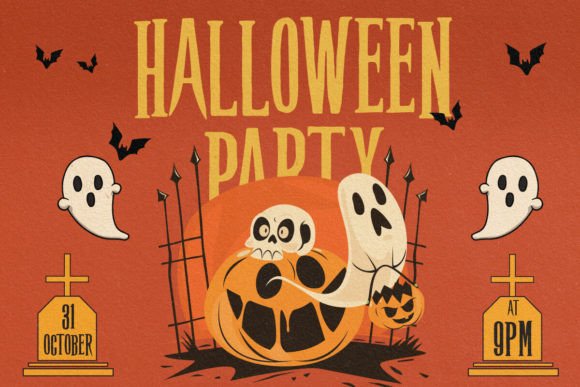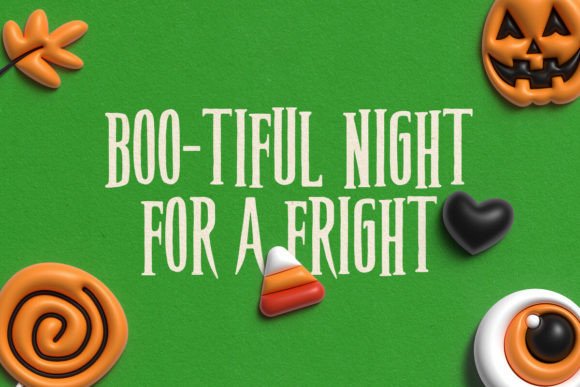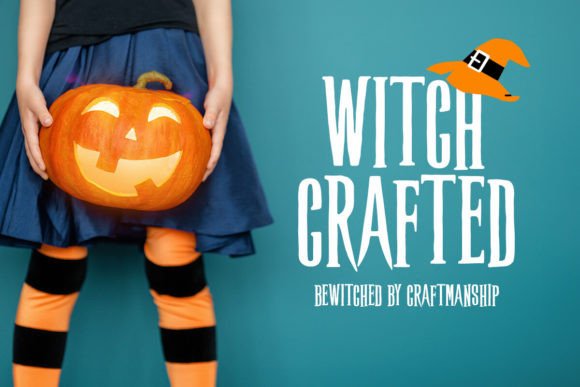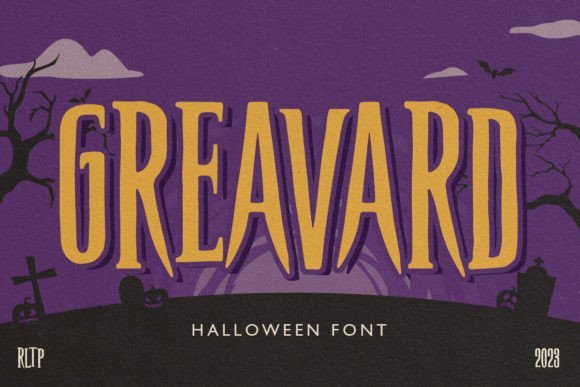
Introduction to Gravard Font
Introducing “Greavard,” the ultimate Halloween-themed condensed serif font.
With its eerie charm and sophisticated design, “Greavard” is perfect for creating spine-tingling posters, invitations, and more But that’s not all – when you purchase “Greavard,” you’ll also receive a bonus of 15 high-quality 3D Halloween-themed objects in PNG format.
Key Features of Gravard Font
Why Choose Gravard Font?
Gravard Font offers exceptional quality and versatility, making it a valuable addition to your design toolkit. Whether you’re creating for personal projects or commercial use, Gravard Font delivers professional results.